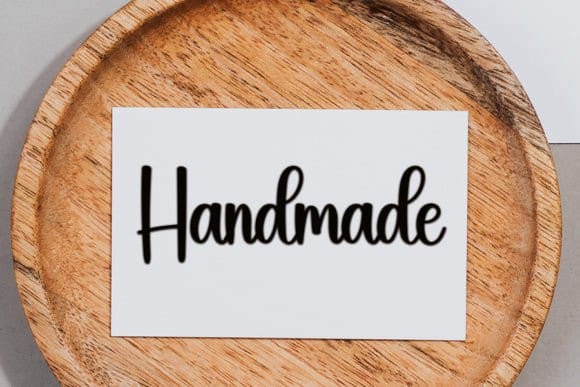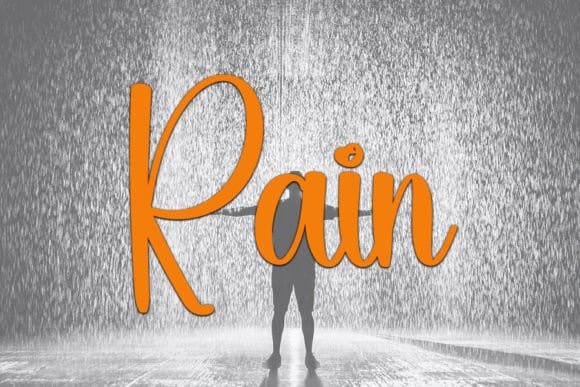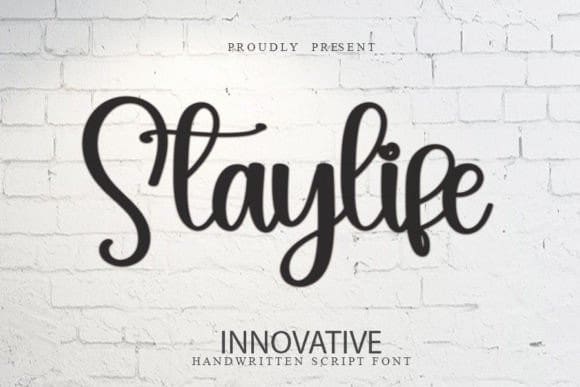
Staylife Script Font
Staylife Script Font is an enchanting handwritten font. This versatile script font has a wide spectrum of applications ranging from greeting cards to headlines and is guaranteed to add a romantic feel to your next project.